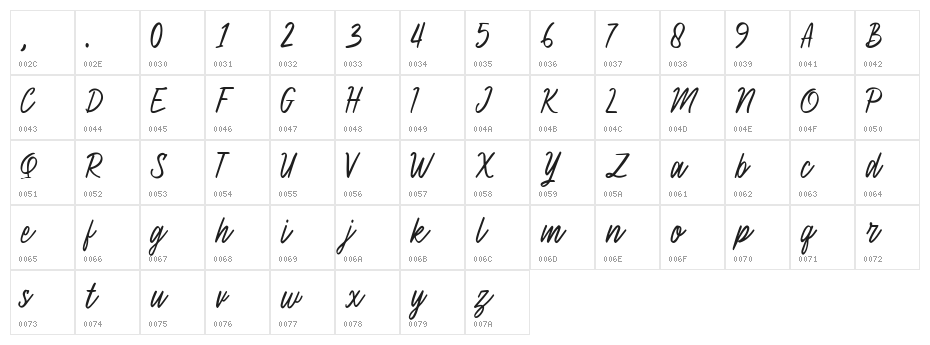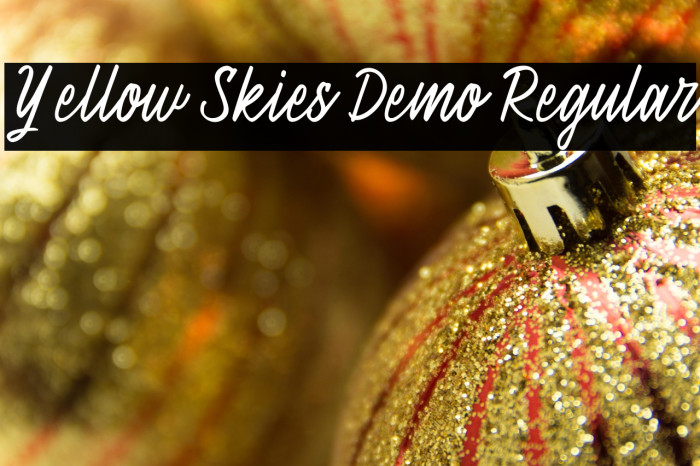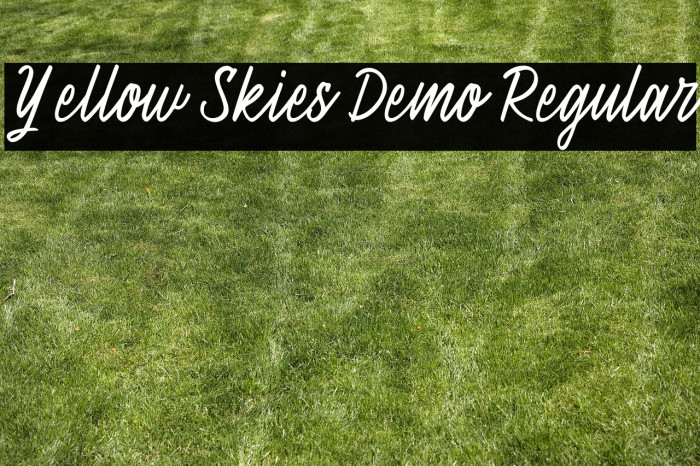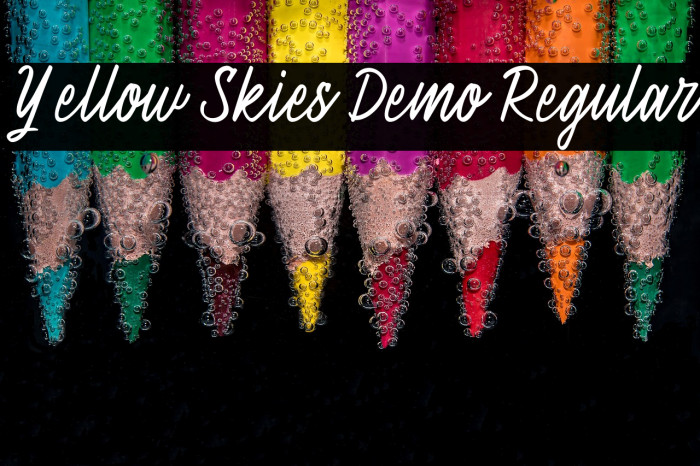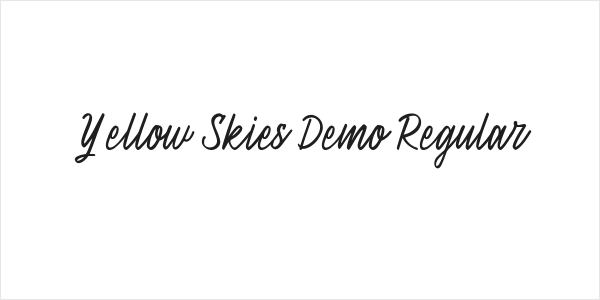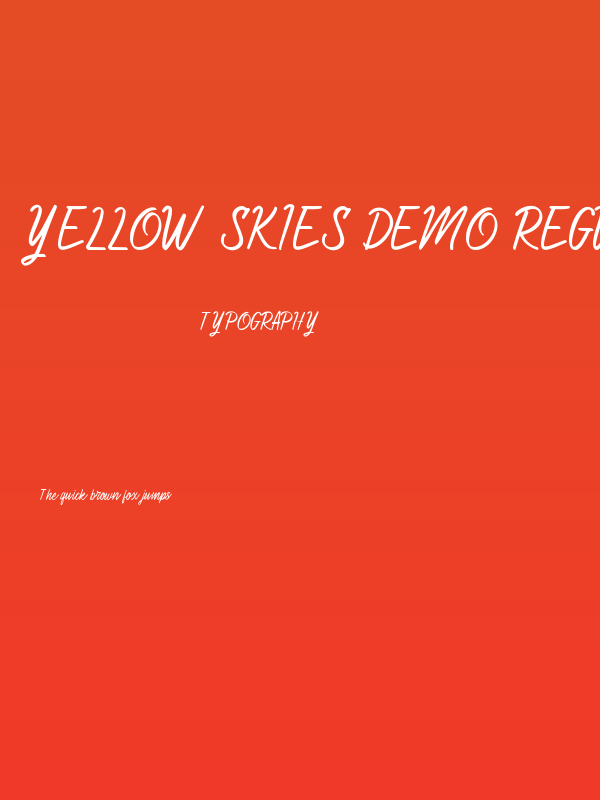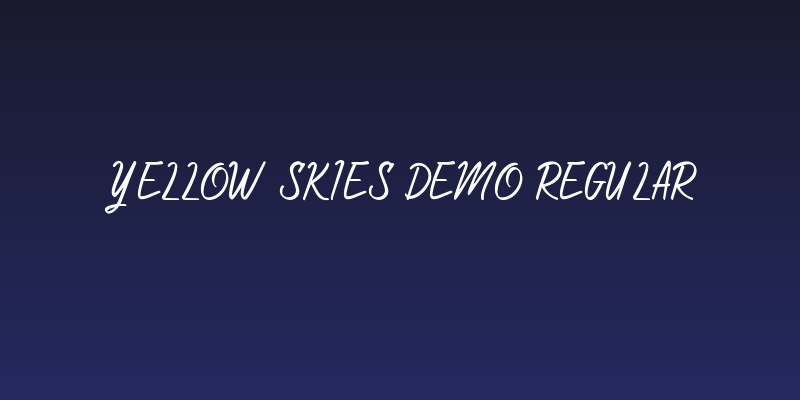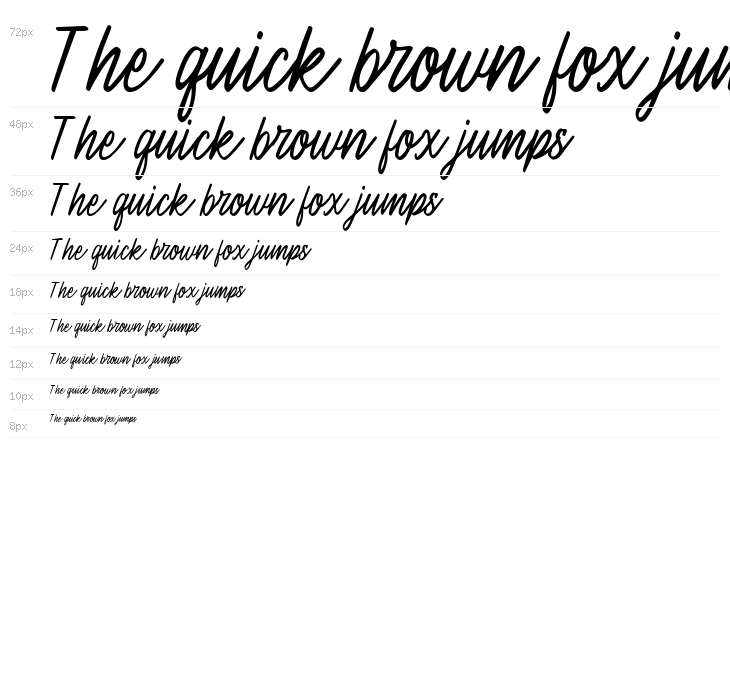
Yellow Skies Demo Regular Font
Yellow Skies Demo Regular Description
This font exudes a casual and friendly vibe with its handwritten style, characterized by smooth, flowing strokes and a slight slant that adds a dynamic feel. The letters are well-connected, giving it a cohesive look, while maintaining legibility. The uppercase letters are slightly taller than the lowercase, providing a nice contrast. The numbers and special characters are consistent with the overall style, ensuring uniformity across all text. This font is perfect for projects that require a personal touch, such as invitations, greeting cards, or branding materials that aim to convey warmth and approachability.
| Overall Style | Casual, Friendly |
| Proposed Projects | Ideal for invitations, greeting cards, personal branding, and creative projects. |